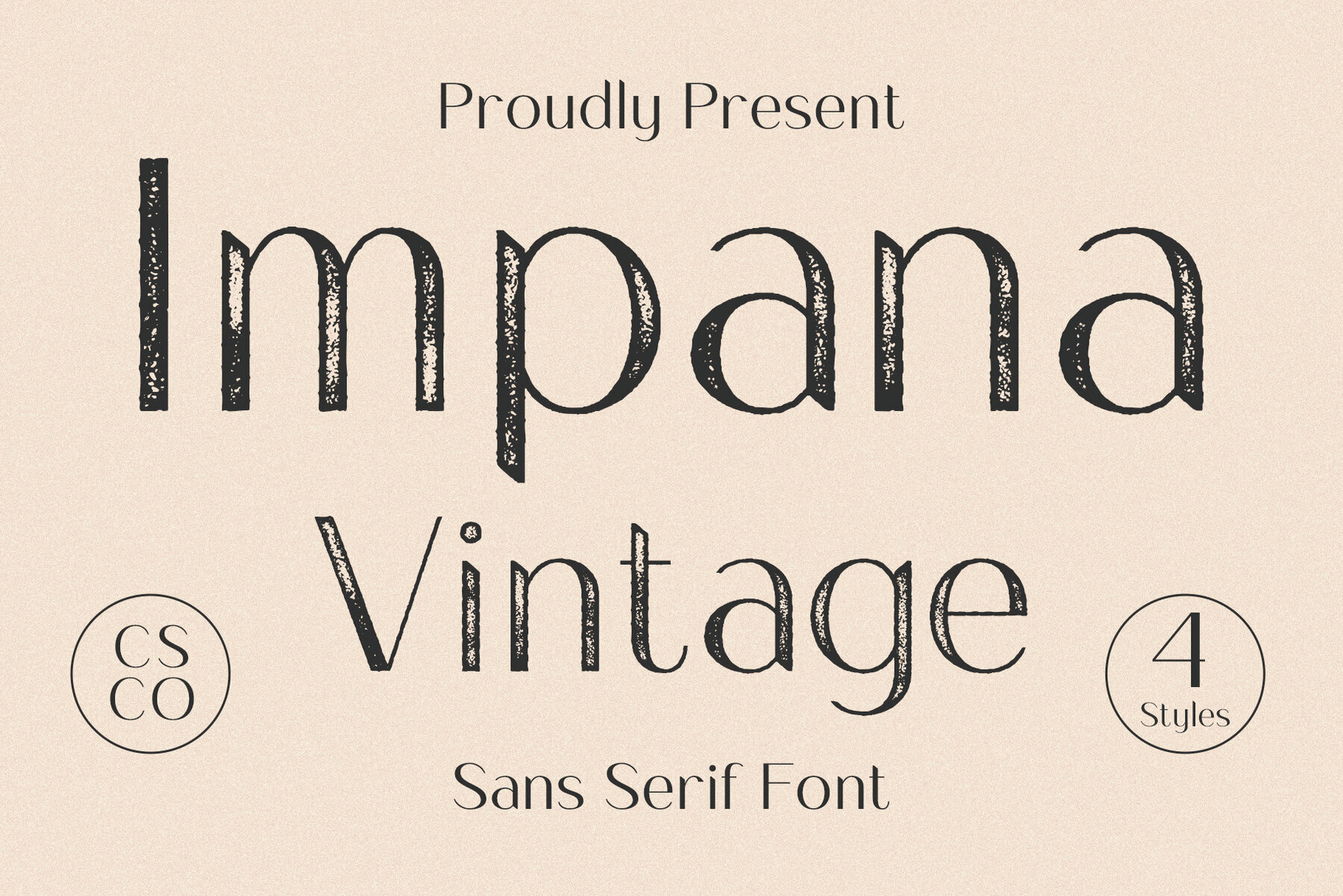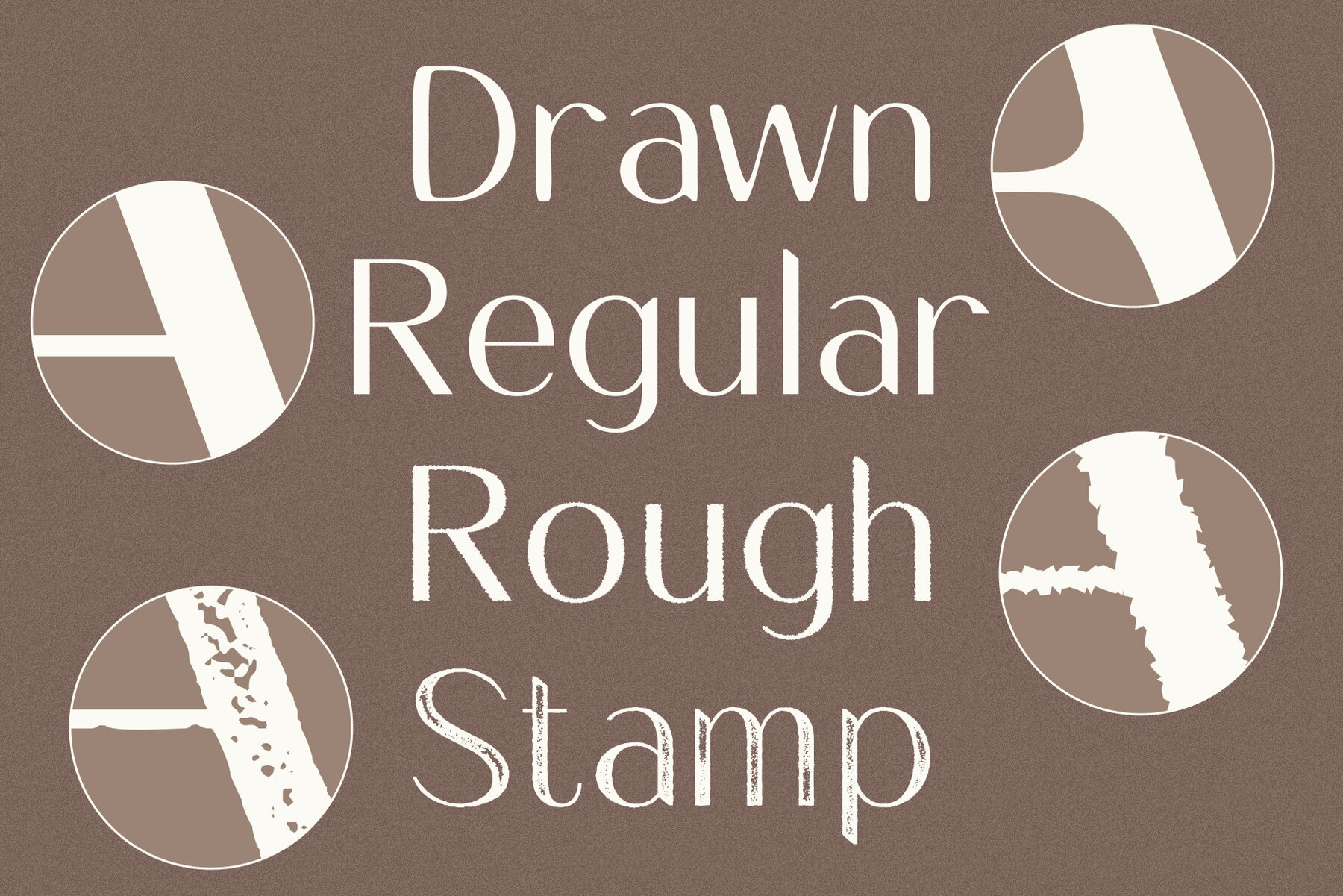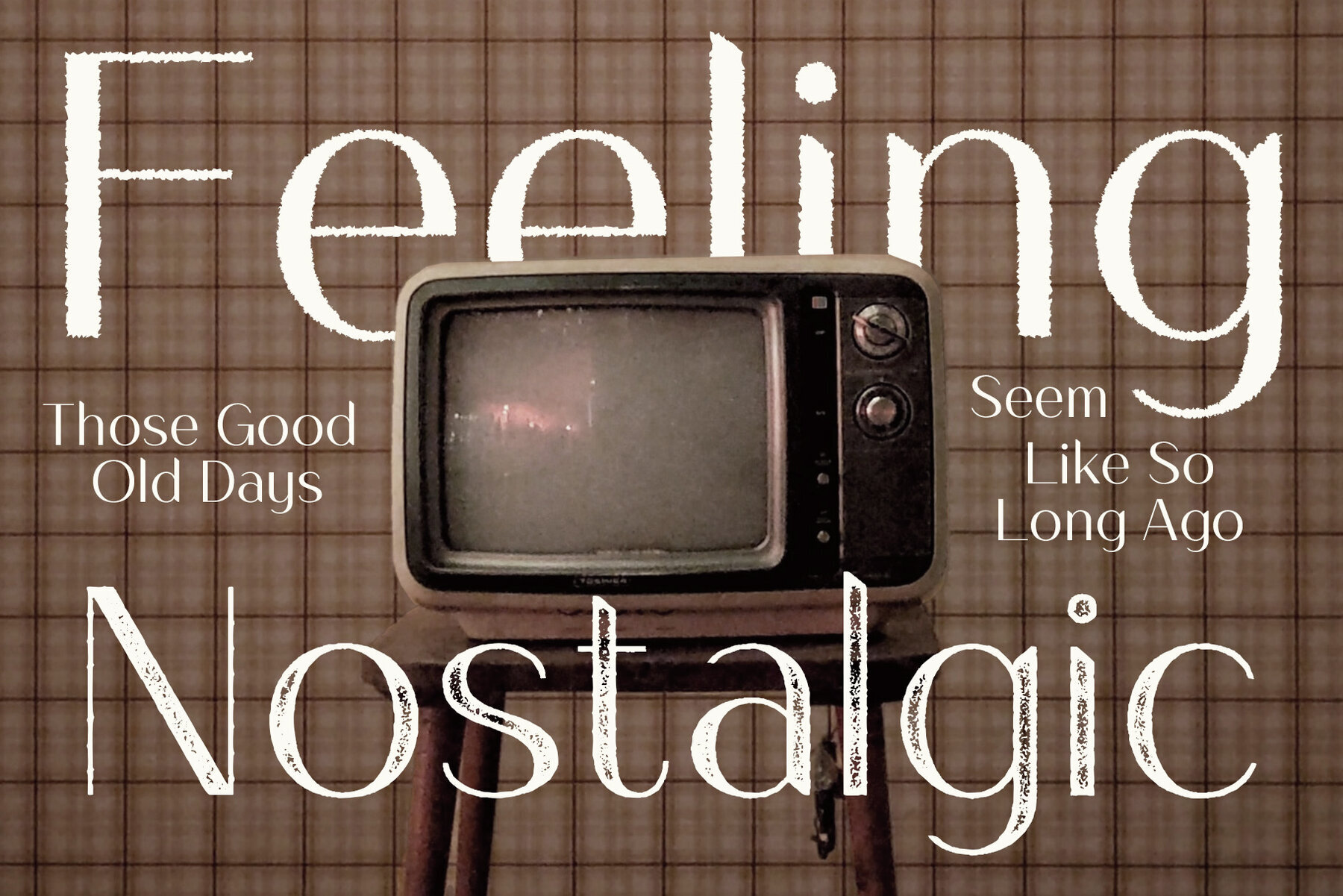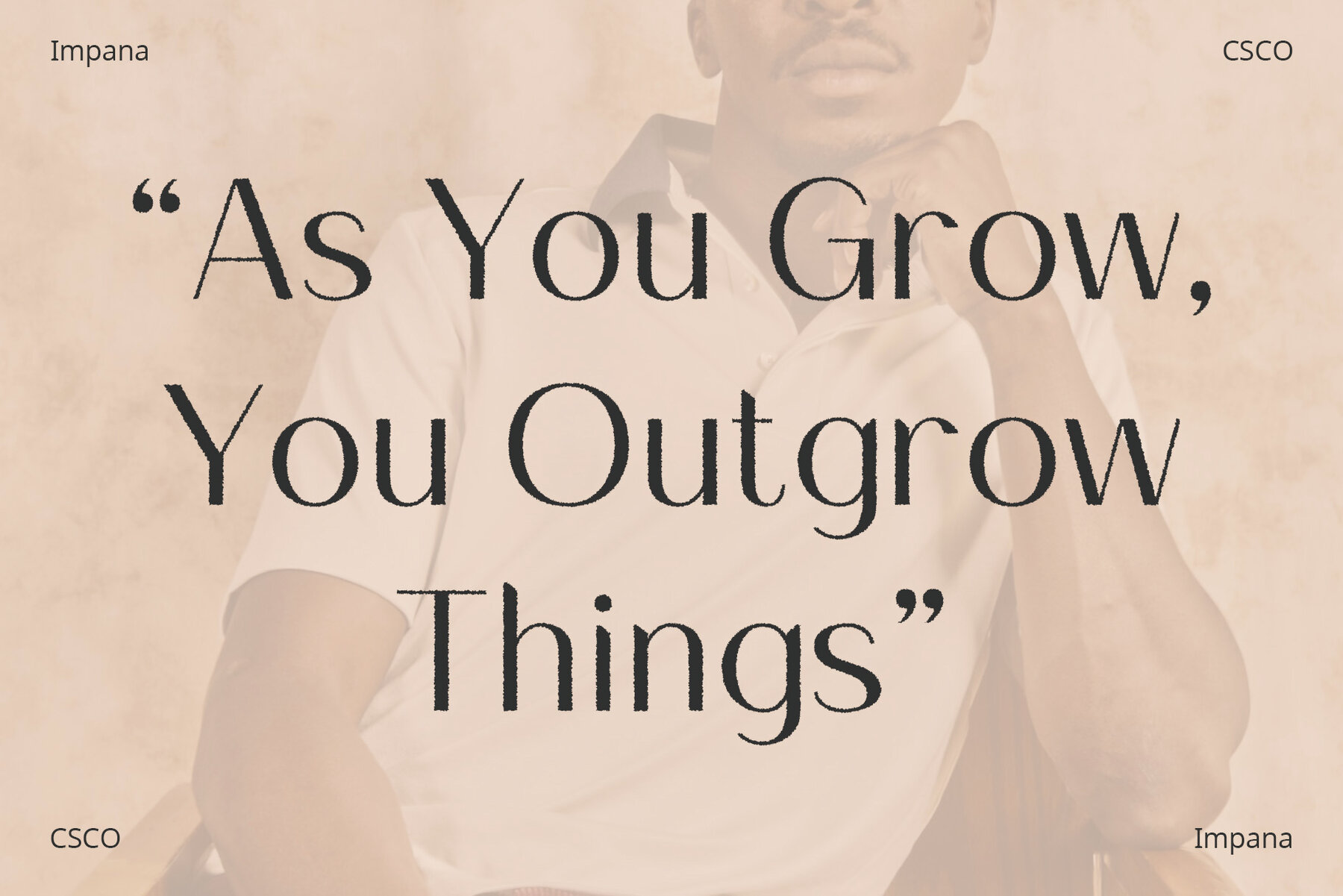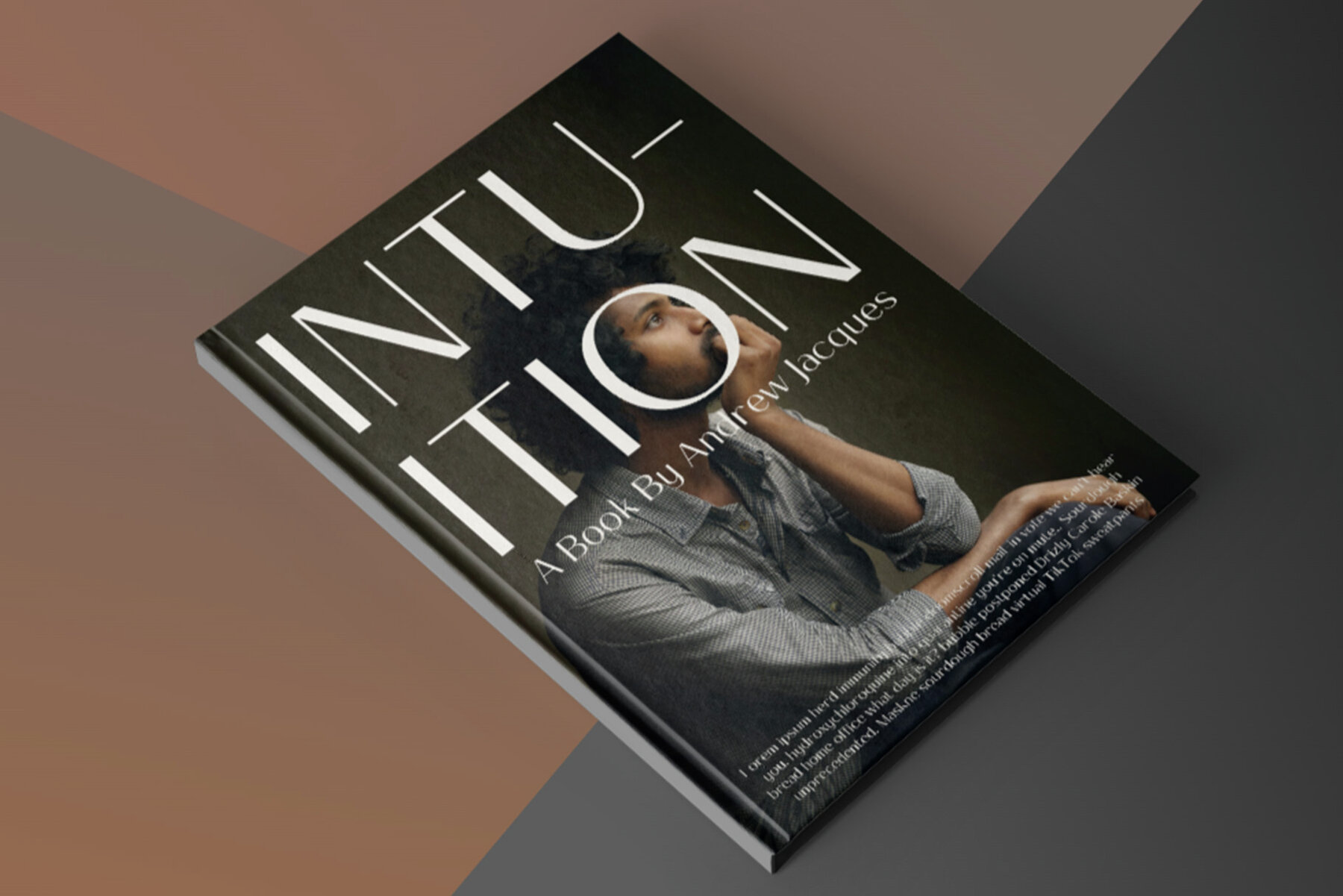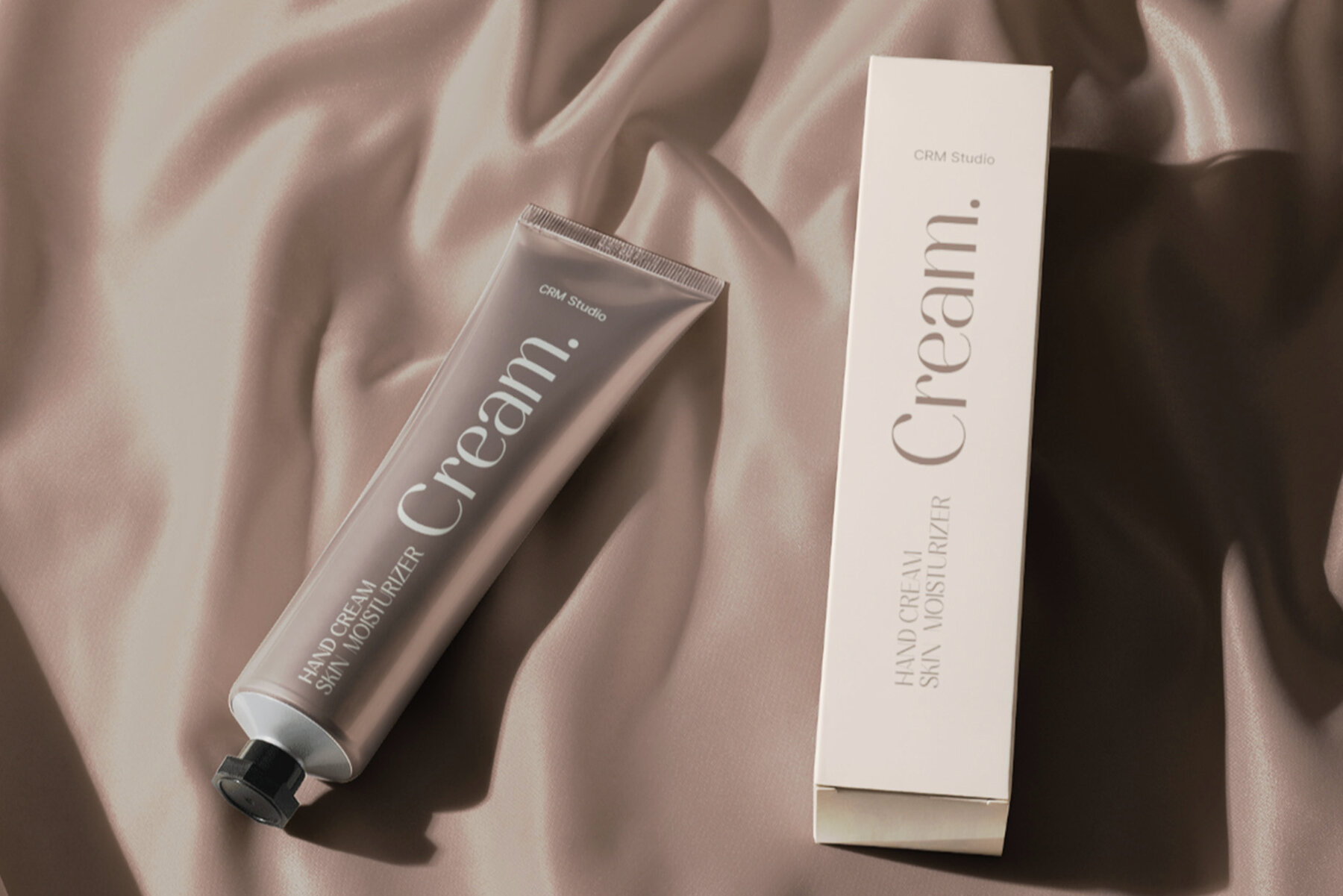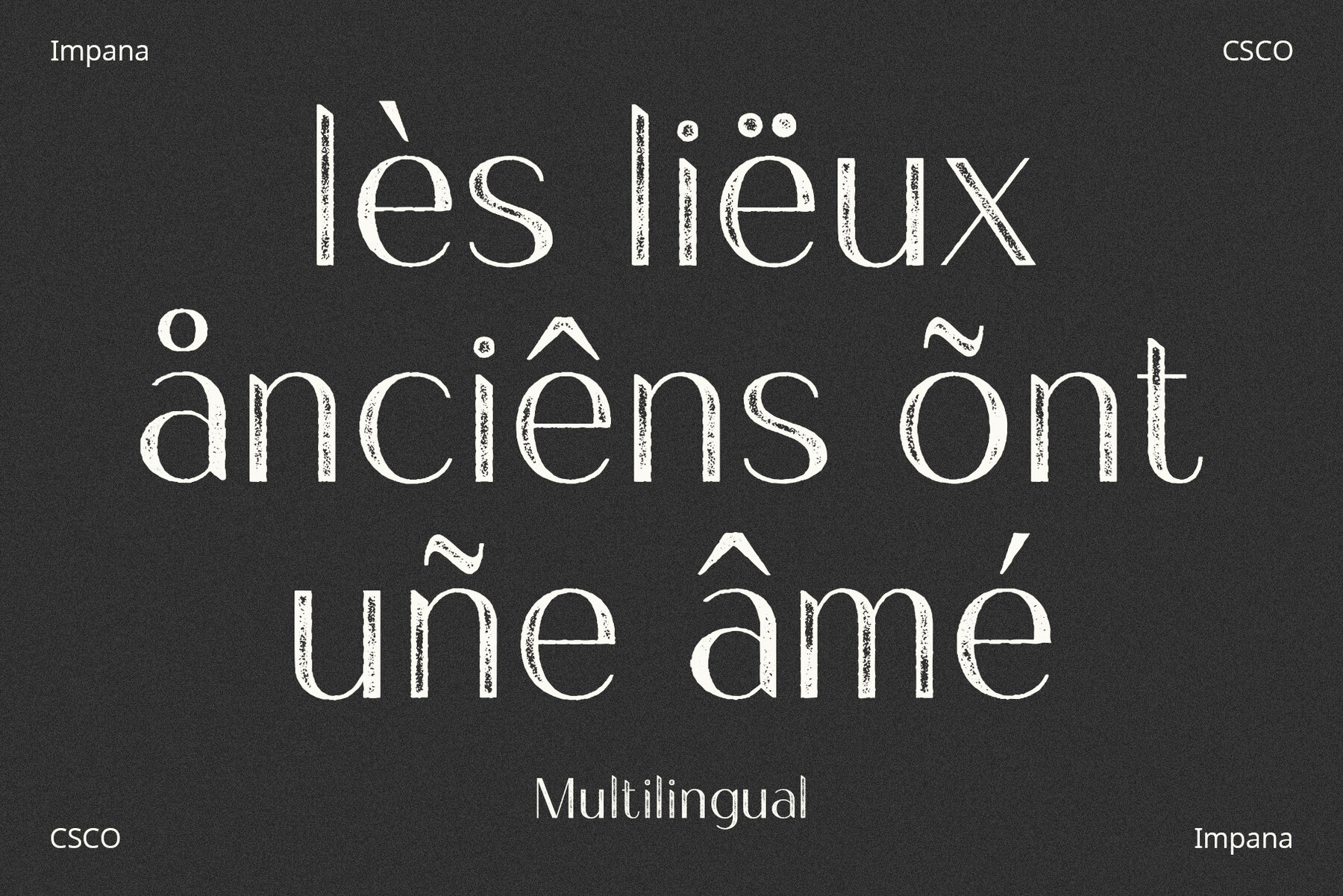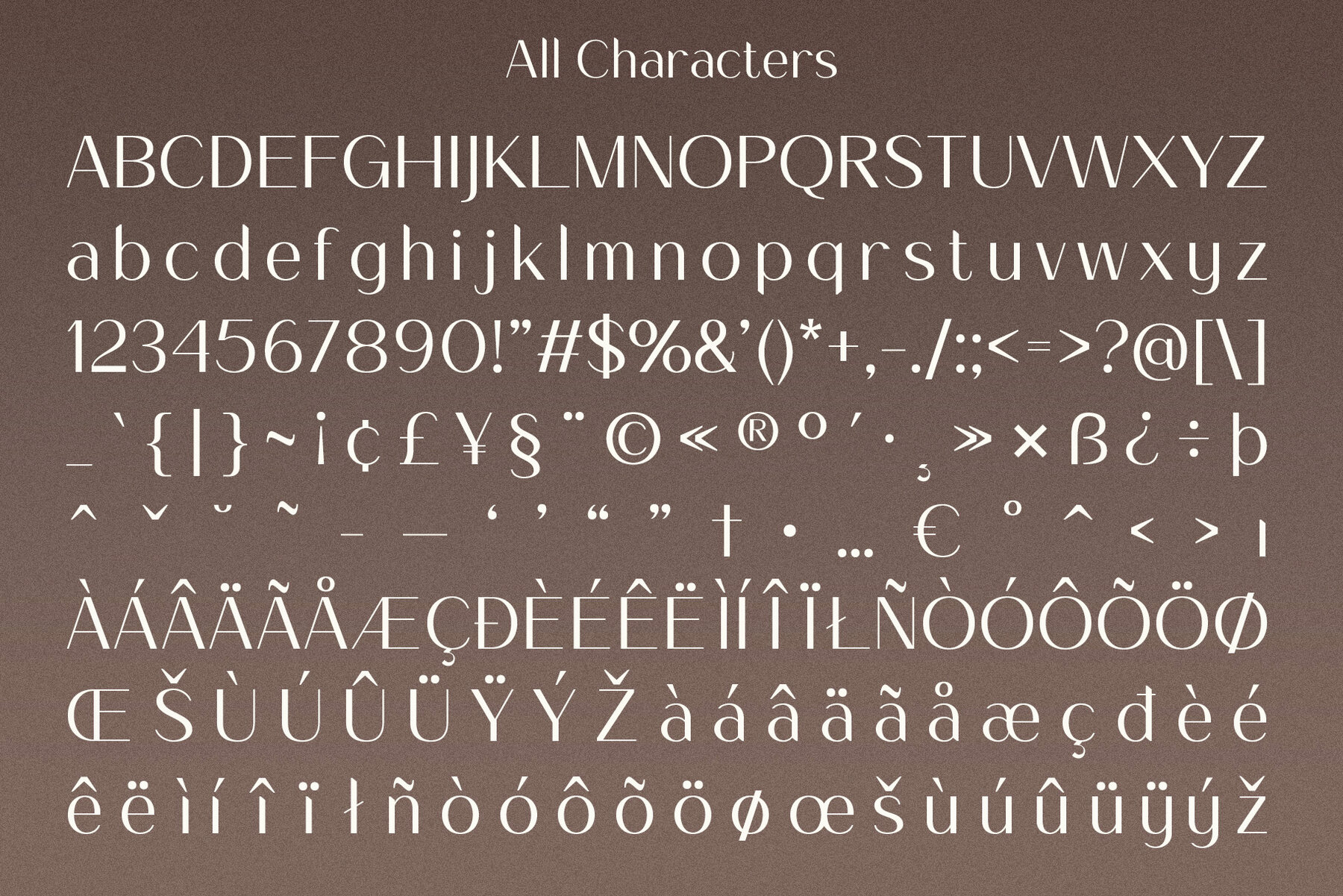
Impana Vintage Font
Impana Vintage is a captivating sans-serif font that seamlessly blends the classic allure of vintage design with a modern edge. This font embodies the essence of stamp-style aesthetics, complemented by a touch of rough, hand-drawn character. Infused with vintage charm, Impana Vintage features bold, sans-serif letterforms reminiscent of old-school signage and posters, ideal for projects seeking a retro flair. The unique rough, distressed edges of Impana Vintage add character and individuality. Perfect for invitations, posters, or logos, this font lends a distinct personality to any design. Impana Vintage incorporates a hand-drawn quality, with each letter exuding an artisanal feel. Ideal for those who value the authenticity of hand-crafted elements, it adds an elegant touch to projects. With its ability to adapt to various design needs, Impana Vintage is both versatile and expressive. Whether for a modern brand or a retro-themed event, this font accommodates various moods and themes. In summary, Impana Vintage combines vintage charm, roughness, and hand-drawn craftsmanship, making it suitable for a broad range of design projects. Its unique character ensures your work stands out, offering a timeless, edgy appeal. No specialized software is needed to utilize this typeface. For any inquiries or assistance, please feel free to get in touch. We appreciate your support in making your creative projects shine!Impana Vintage: Stylish Sans Serif with Timeless Appeal
Timeless Vintage Vibes
Rough and Edgy Appeal
Hand-Drawn Craftsmanship
Versatile and Expressive